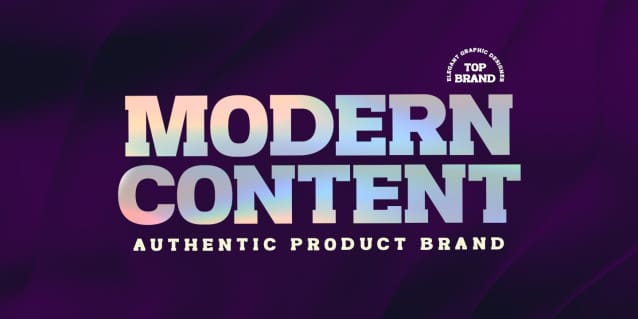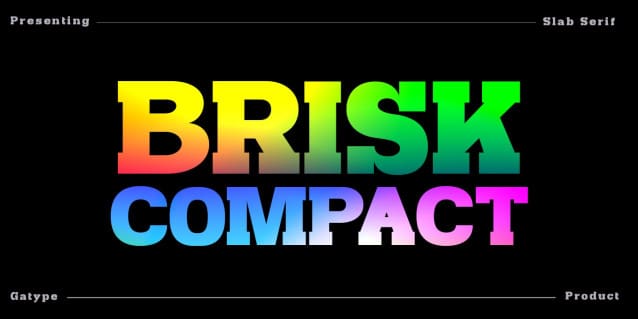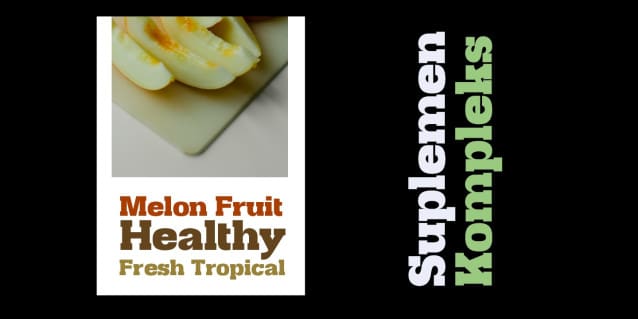
Brisk Compact Font
Brisk Compact Font is a slab serif font with bold, clean, large shapes. The typeface as a whole is strong in conveying order and harmony between letters. Best used as Instagram, poster, web design, magazine, logo or product.